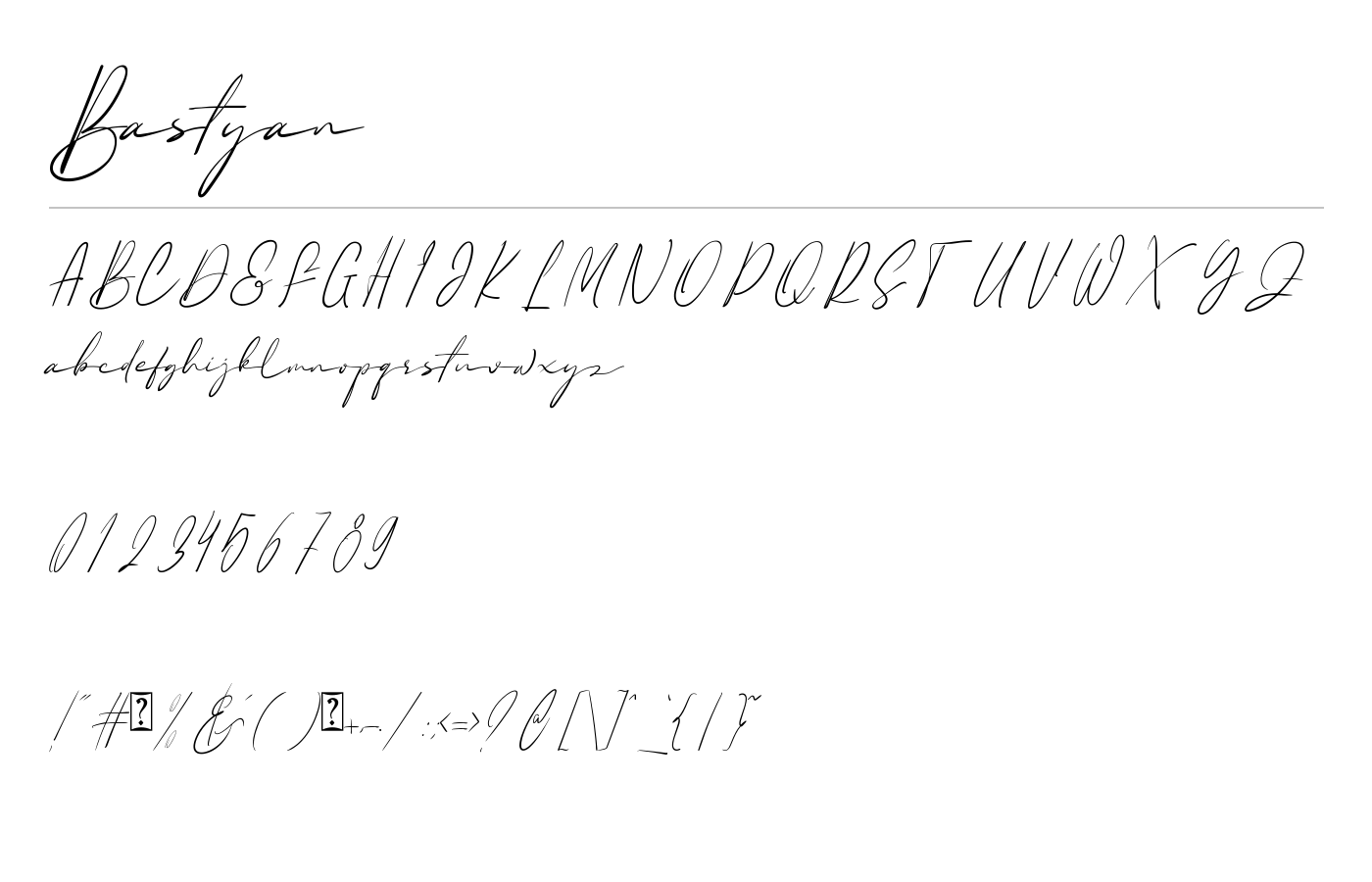
Bastyan is a delicate, elegant script font with a refined, handwritten style that features slender, flowing strokes and a light weight. Its airy, sophisticated letterforms convey a sense of modern femininity, making it a perfect choice for fashion branding, wedding invitations, and luxury packaging. This font's graceful and personal touch adds charm to headlines and logos where a stylish yet understated look is desired.
Bastyan Font
About Bastyan Font
| Font family | Bastyan Font |
| Designer | Biham Santoso |